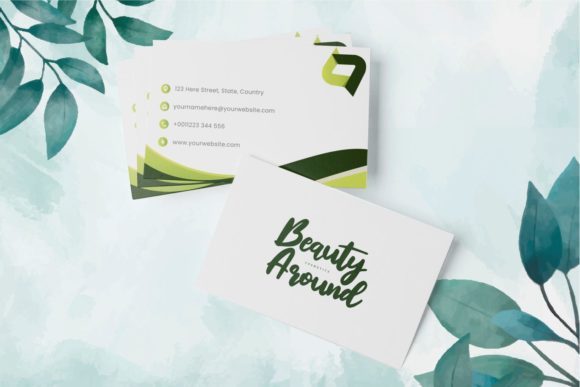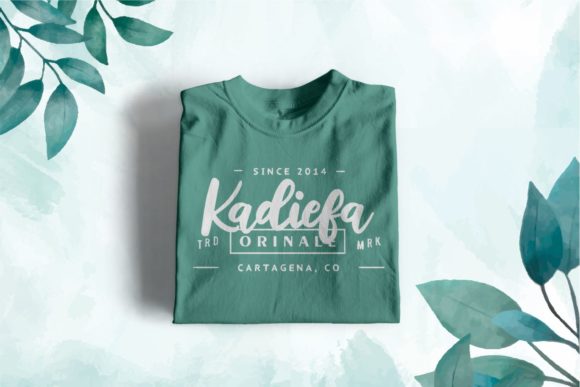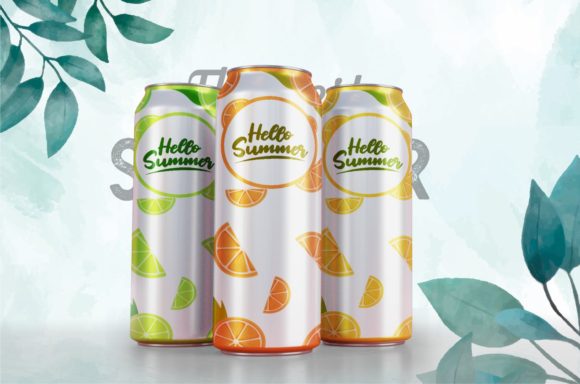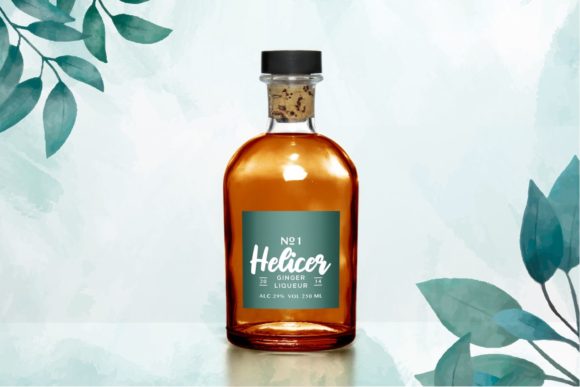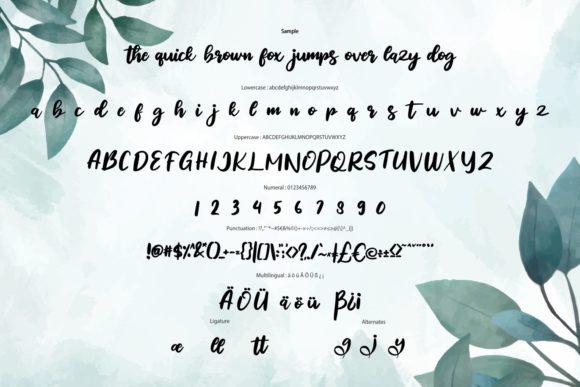
Discover the Timeless Charm of Falesia Font
Have you ever been brainstorming a creative project and suddenly, out of nowhere, a font pops into your head? For many designers, this is the moment when inspiration strikes, and the possibilities start to unfold. For me, it was the Falesia Font that captured my attention, and I knew I had to share its beauty with the world.
Falesia Font is a stunning, handcrafted typeface that exudes elegance and sophistication. Its bold, handwritten style makes it perfect for a wide range of applications, from wedding invitations to social media posts. With Falesia Font, you can add a personal touch to any design project, making it truly unforgettable.
As a designer, you understand the importance of having the right tools at your disposal. Falesia Font is a valuable addition to any design arsenal, offering endless creative possibilities and a unique visual identity that sets you apart from the crowd.
Falesia Font Key Features
- Font Style: Script, Display
- Font Size: Supports various font sizes, including small caps
- Resolution: Supports high-resolution display, ideal for digital use
- Language Support: Supports multiple languages, including Latin-based alphabets and Cyrillic
- Unique Characteristics: Hand-drawn, elegant, and sophisticated script font with a natural, flowing feel
Falesia Font Review
Overall, I’m quite impressed with the Falesia Font, especially when it comes to its versatility and aesthetic appeal. ✨ The font has a unique blend of modern and elegant elements that make it perfect for various design projects, from branding and advertising to digital products and publications.
Here are some of the things that I think work well with Falesia Font:
- ✨ Unique letterforms and character shapes that add a touch of sophistication to any design
- ✨ Excellent legibility, making it easy to read and comprehend, even at smaller font sizes
- ✨ Wide range of weights and styles, allowing for flexibility in design and typographic expression
- ✨ Supports various languages and scripts, making it a great choice for international design projects
- ⚠️ Falesia Font may not be the best choice for designs that require a more playful or informal tone
- ⚠️ Some users may find the font’s character shapes a bit too ornate or distracting, especially in larger font sizes
Overall, I think Falesia Font is a solid addition to any designer’s toolkit, offering a unique and versatile typographic solution for a wide range of design projects.
Tips for Getting the Most Out of Falesia Font
Use Falesia font for creative and artistic projects, such as invitations, posters, and social media graphics.
Experiment with different font sizes, colors, and styles to create a unique look.
Pair Falesia font with other fonts to create a visually appealing combination.
Falesia font is ideal for:
Creative projects, such as invitations and posters.
Social media graphics and branding.
Artistic and design-related projects.
Alternatives to Falesia Font
Montserrat is a modern sans-serif font, ideal for digital products and urban environments. It’s clean, minimalist design makes it perfect for use in headings and body text. Montserrat is more geometric than Falesia, with a more angular feel.
Use Montserrat when you want a clean and modern look for your digital product or website.
2. Open Sans
Open Sans is a clean and highly legible sans-serif font, suitable for a wide range of applications. It’s friendly and approachable design makes it perfect for use in body text and headings. Open Sans is more rounded than Falesia, with a softer feel.
Use Open Sans when you want a friendly and approachable font for your website or digital product.
Lato is a modern sans-serif font, designed for digital use. It’s clean and elegant design makes it perfect for use in headings and body text. Lato is more condensed than Falesia, with a more formal feel.
Use Lato when you want a clean and elegant font for your website or digital product.